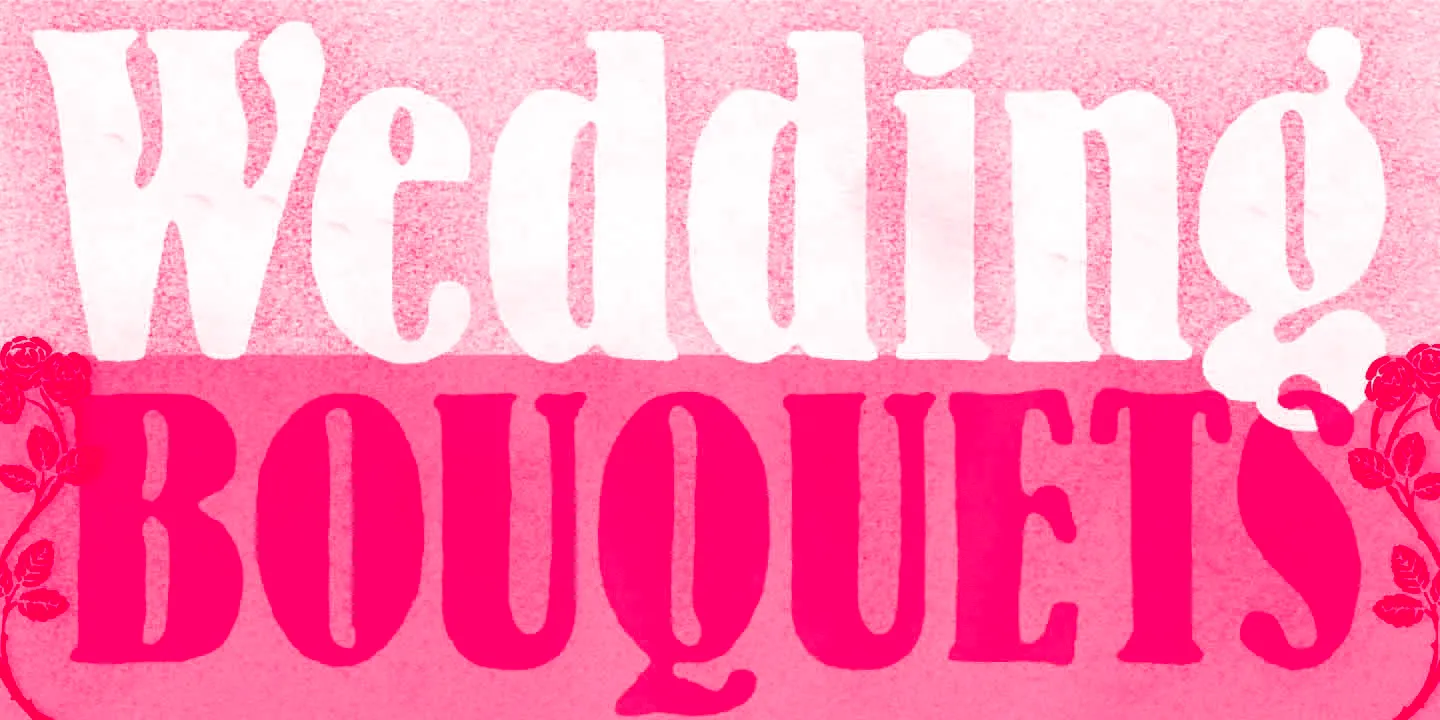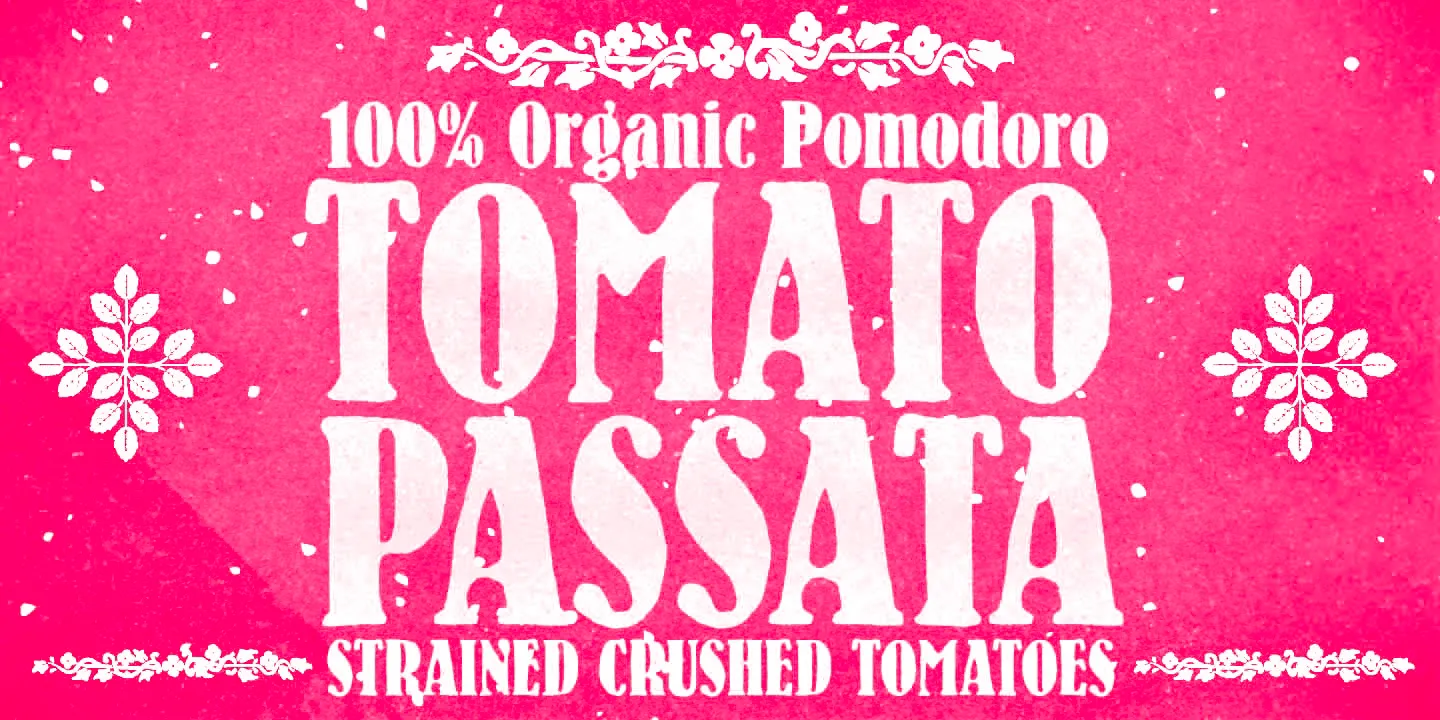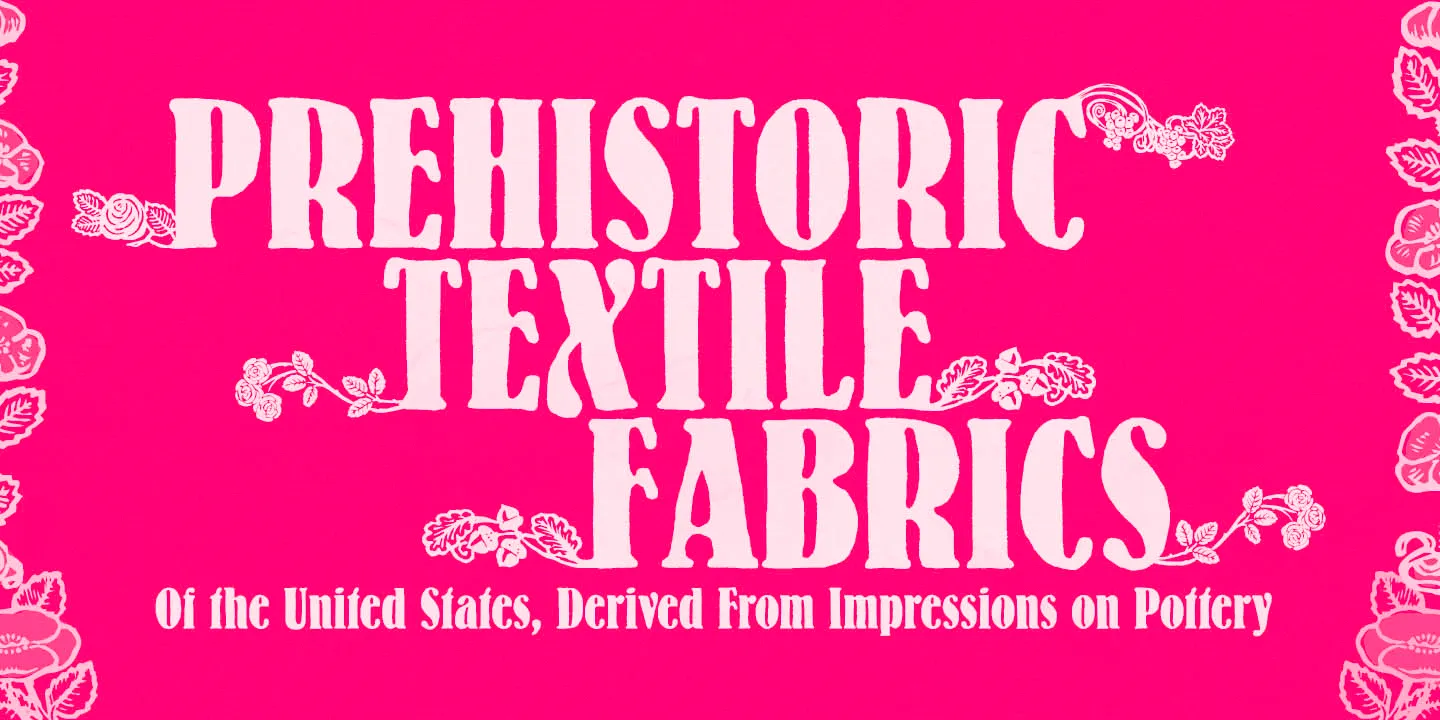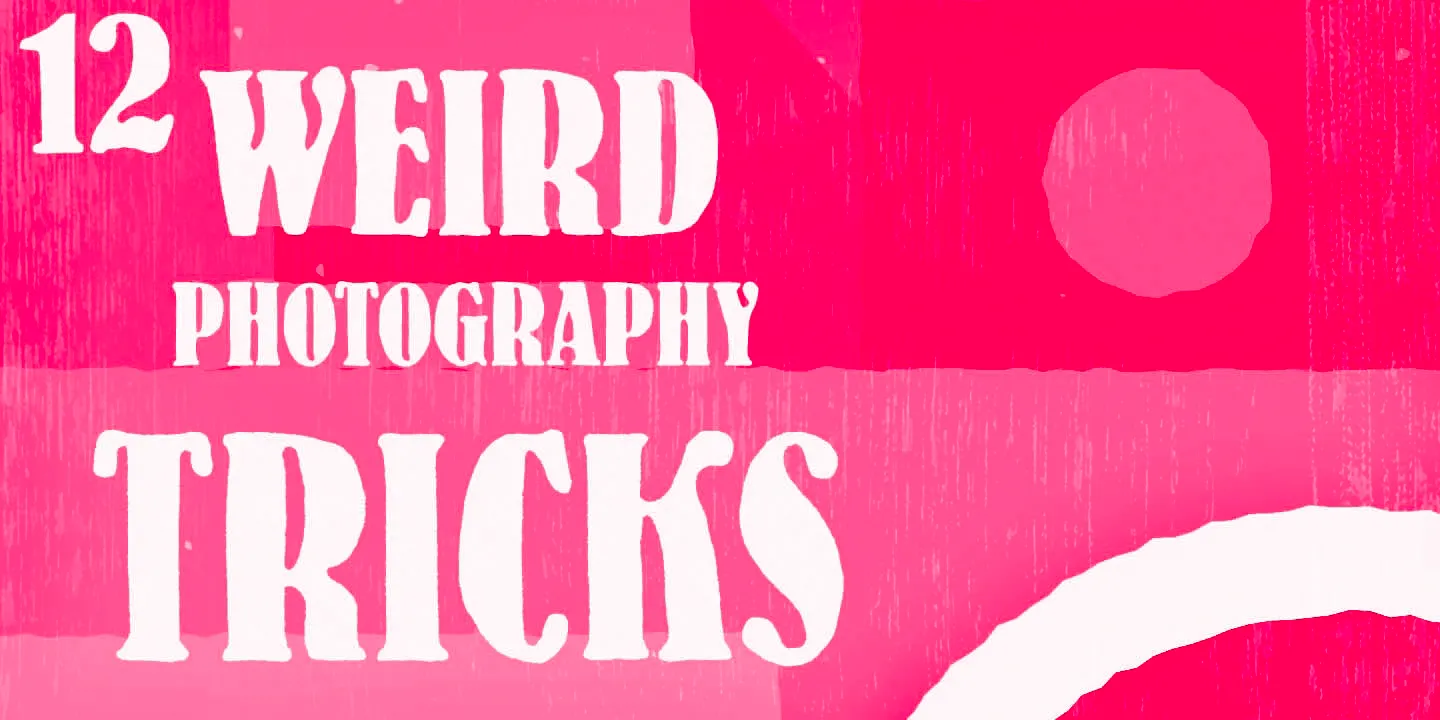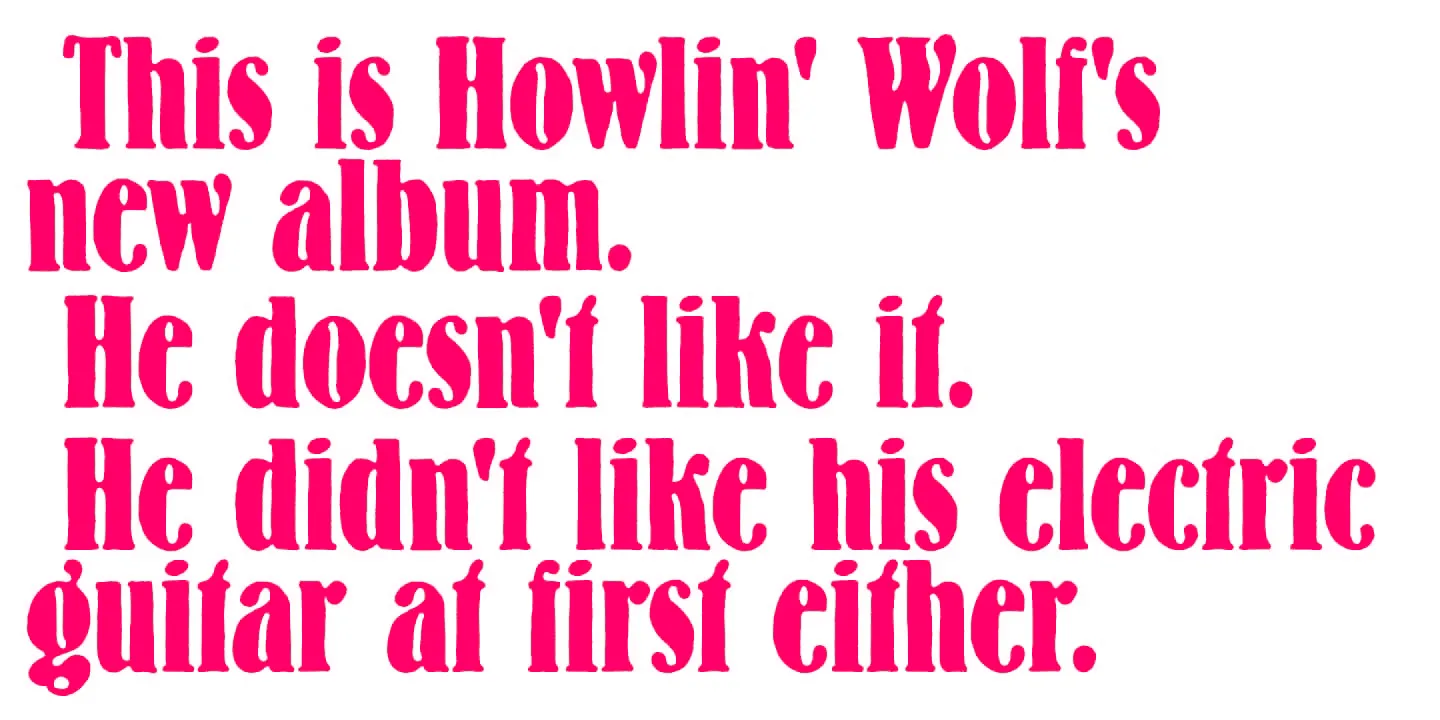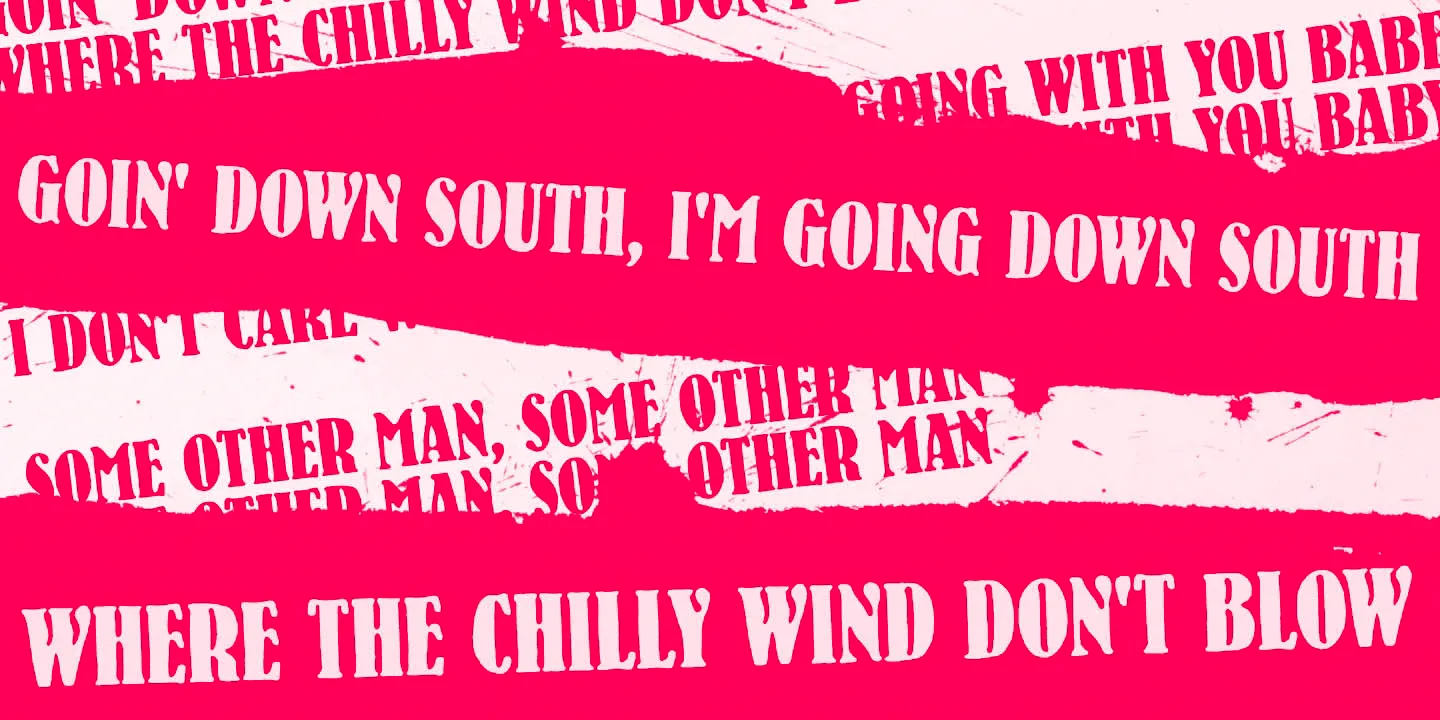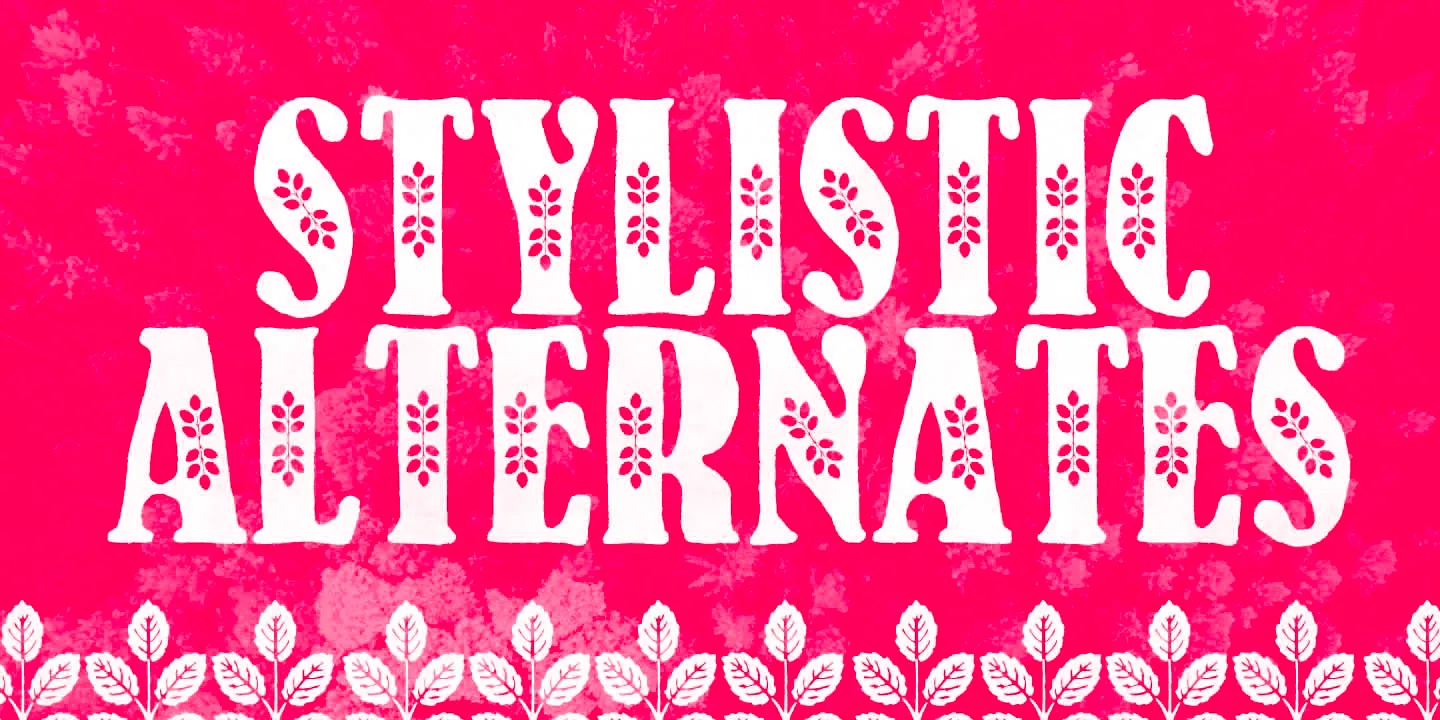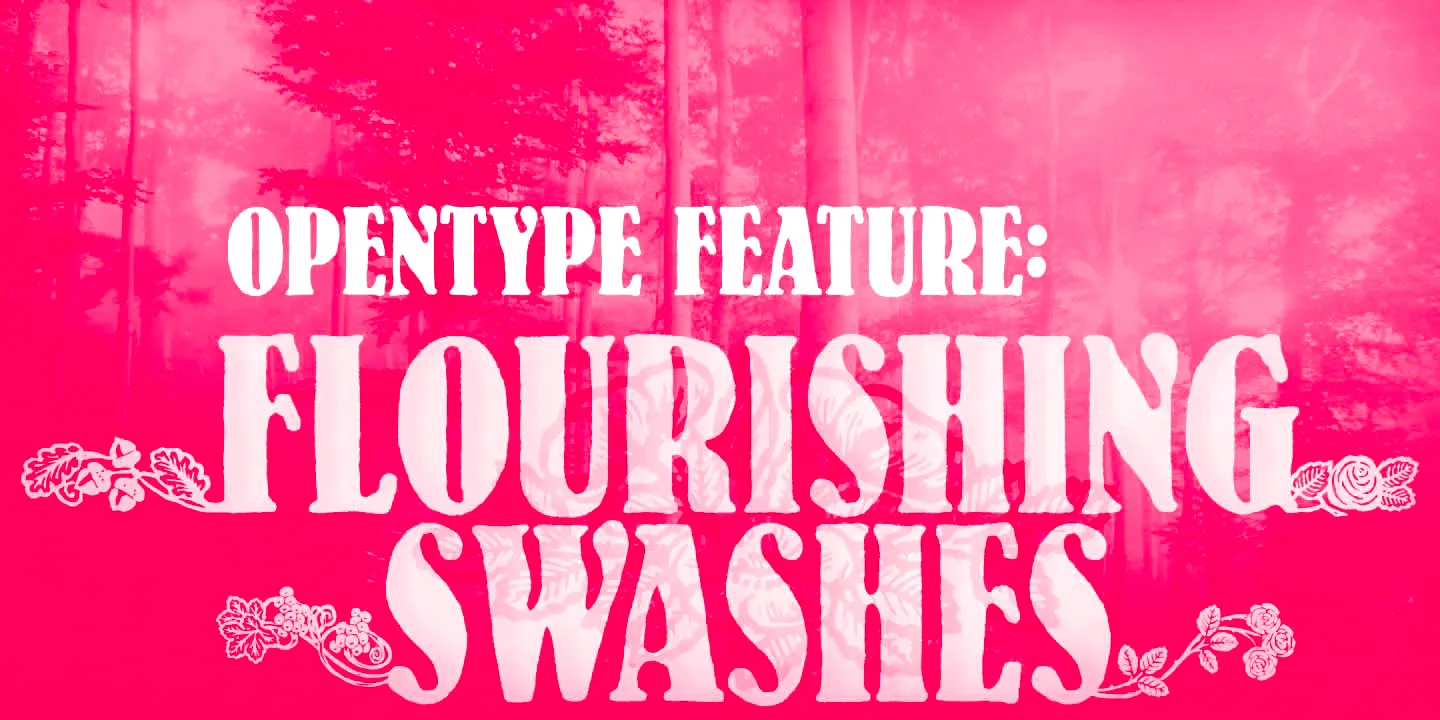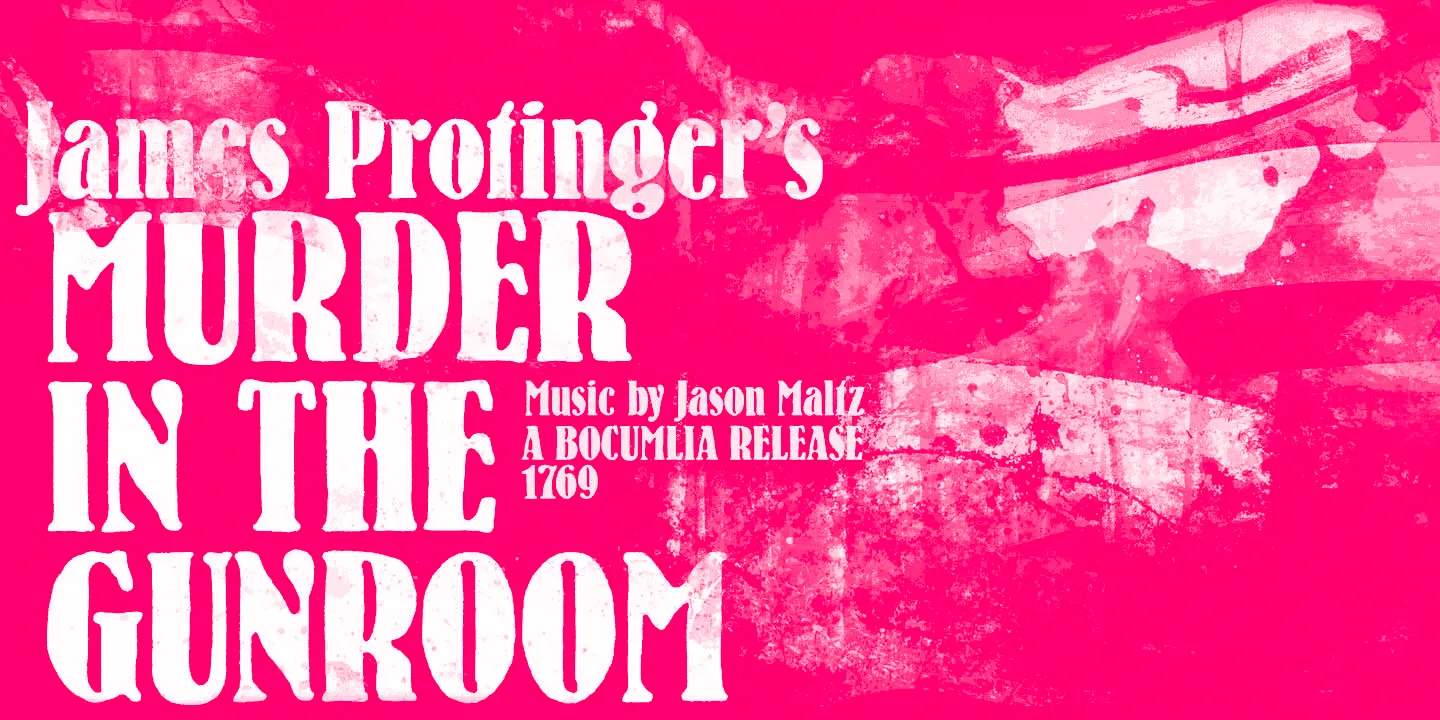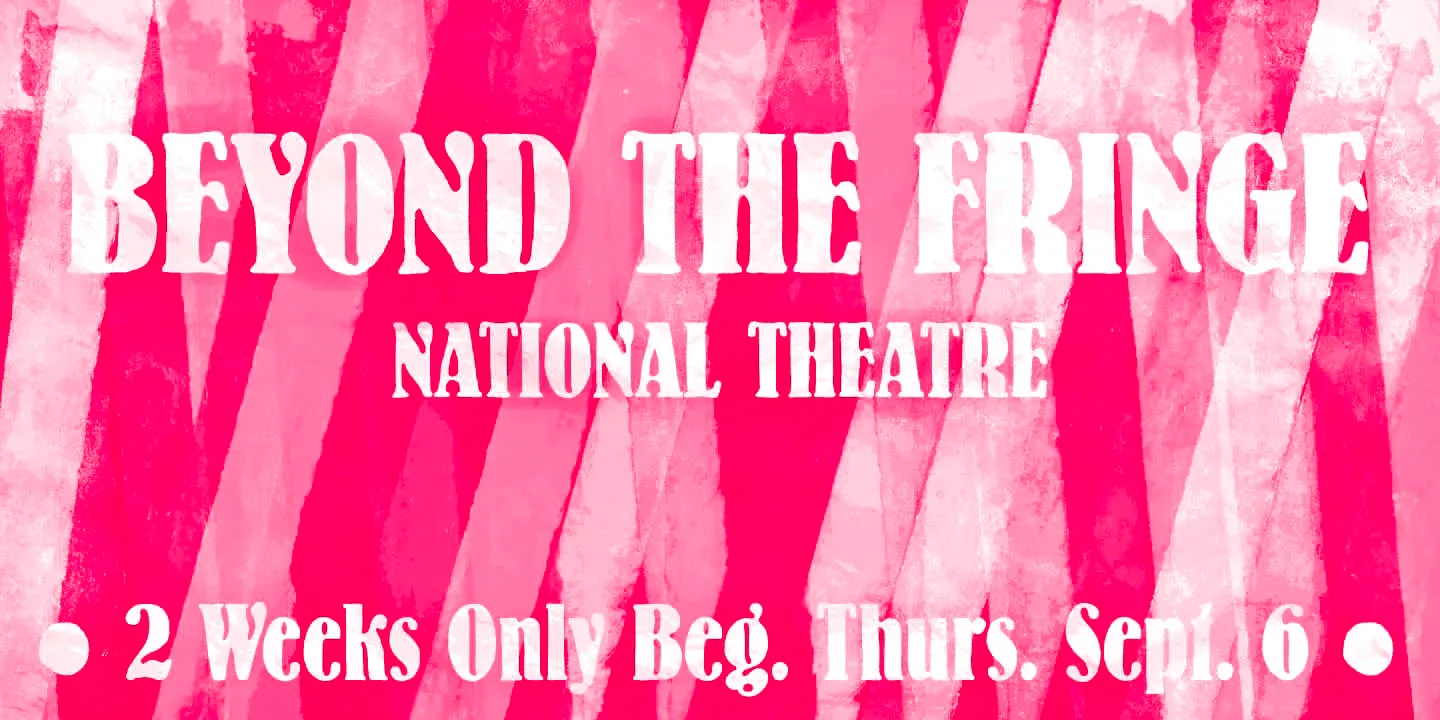
Botanique
Botanique is a decorative family combining a set of floral illustrations with a hand-drawn typeface inspired by Schmalfette Bernhard Antiqua, designed by Lucien Bernhard. Botanique adds a charming roughness and somewhat retro mood. Botanique is a great choice for display purposes, including branding, packaging, editorial design, poster work, and more.
- Common Ligatures
- Stylistic Alternates